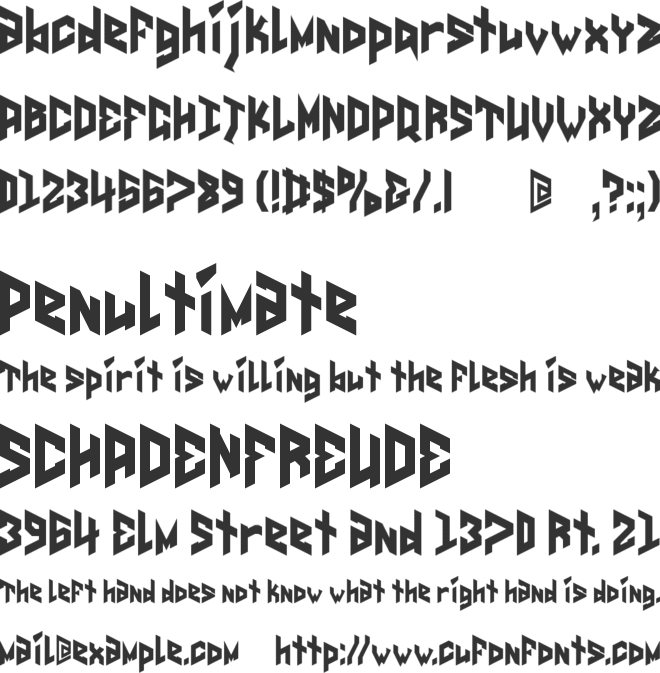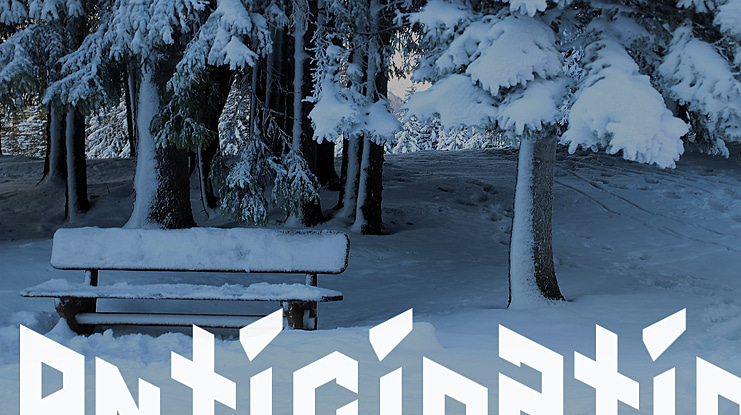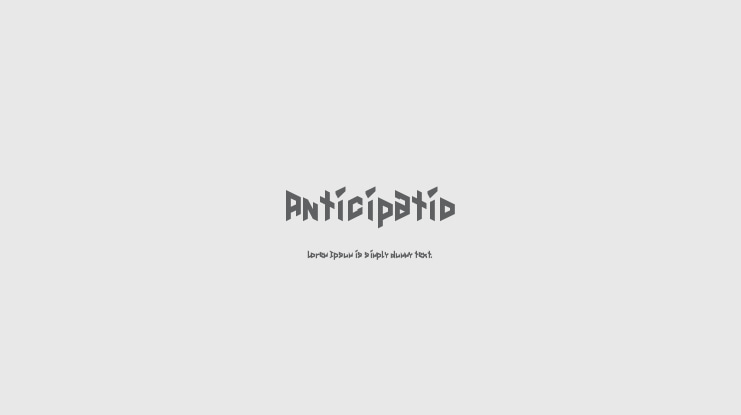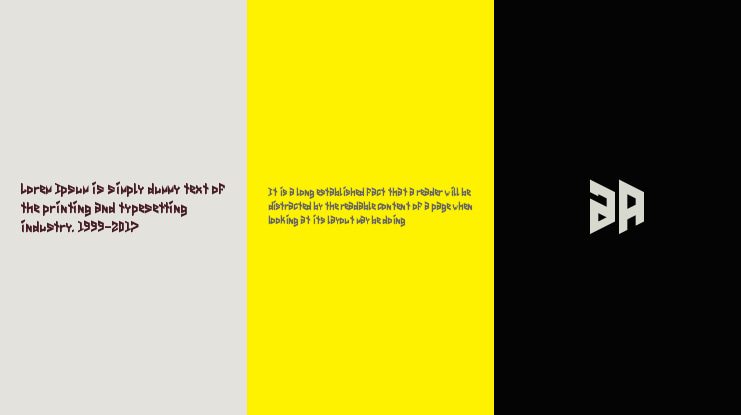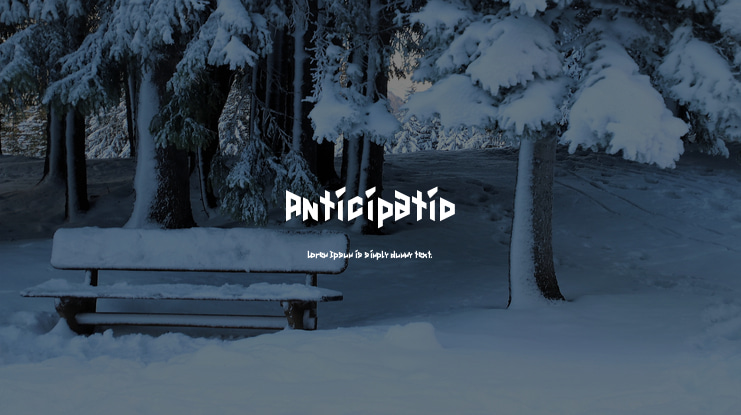
Anticipatio Font
Tiny angular freeware font (& web font) created and Copyright 2014-2019 by Doug Peters of Symbiotic Design. Released as freeware under the SIL Open Font License. Created for fun (and to have something to do). Basic Latin character set (100+ glyphs).